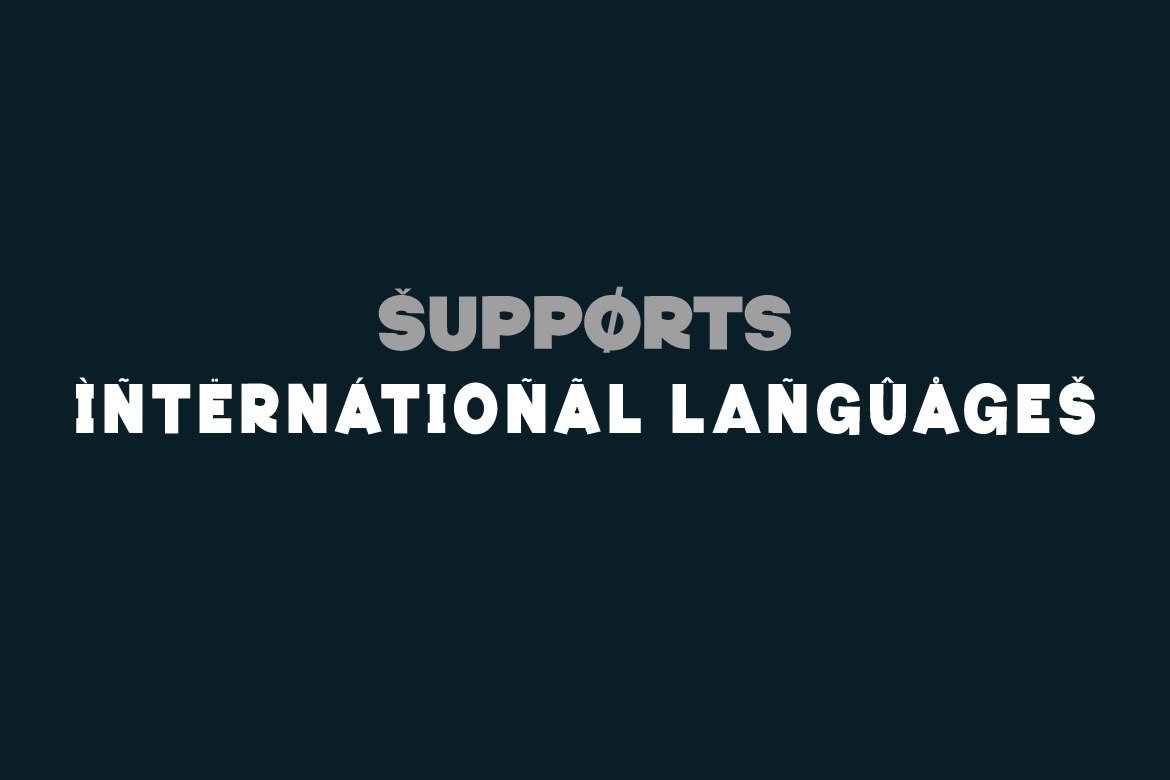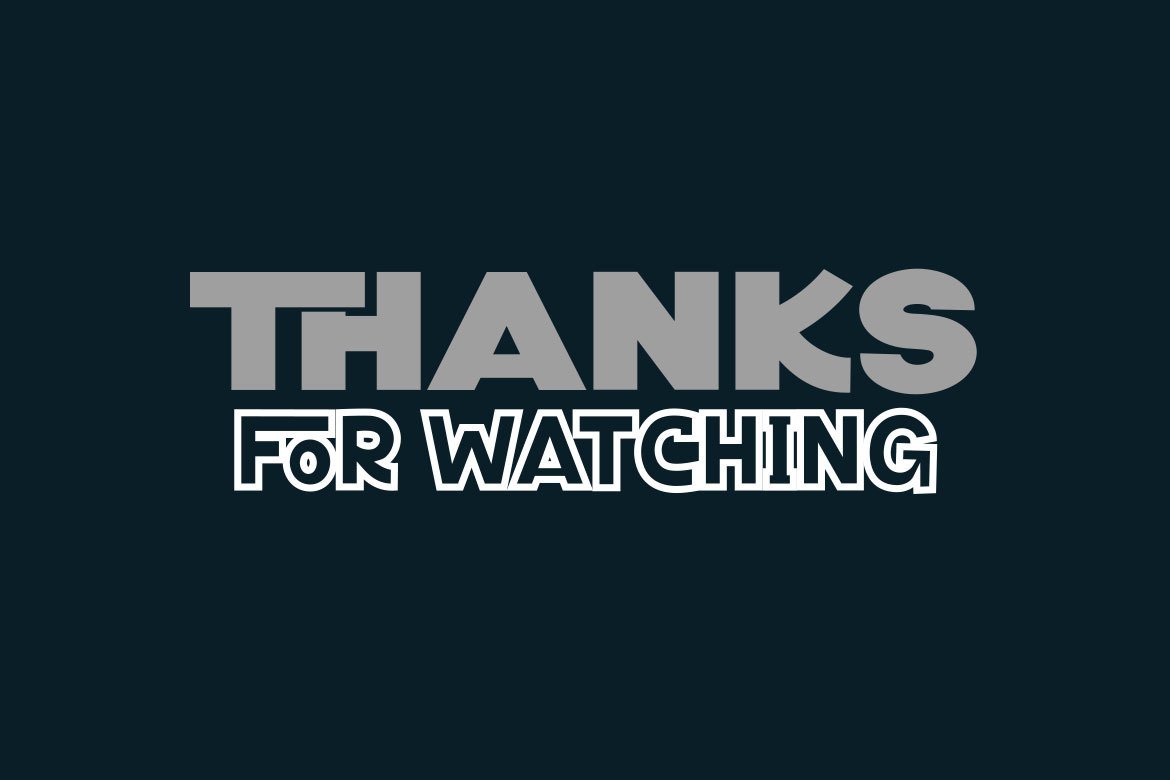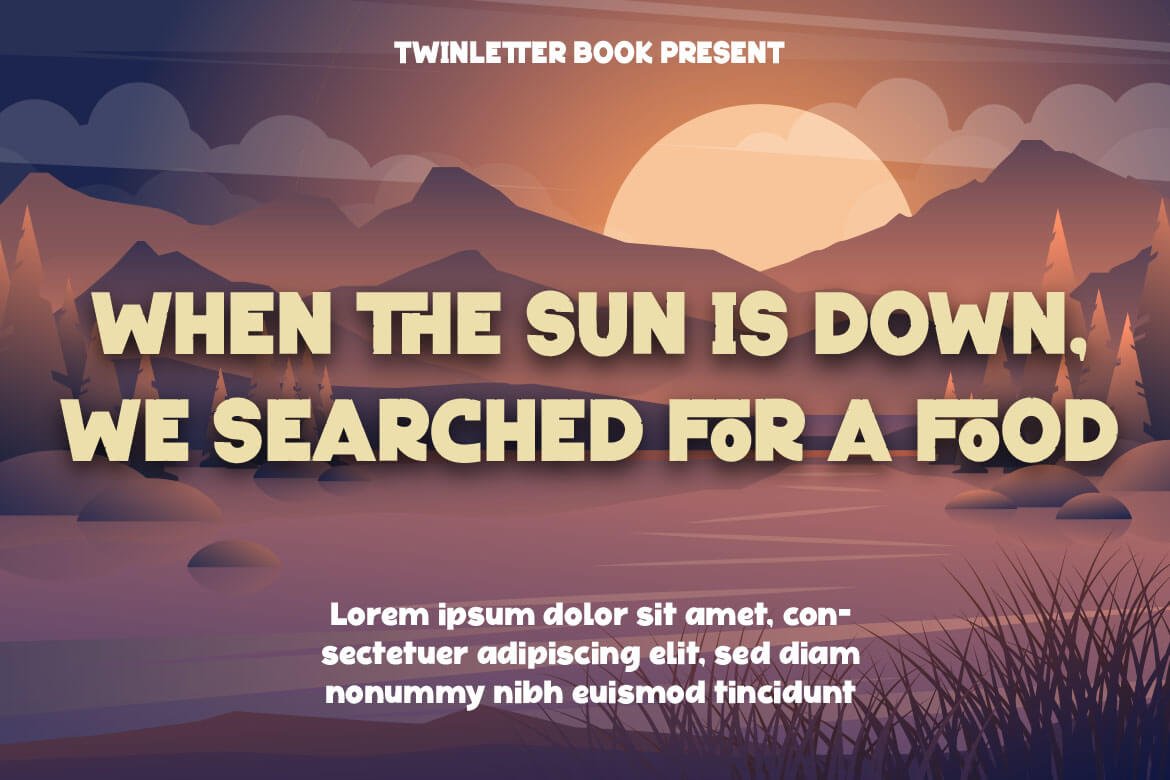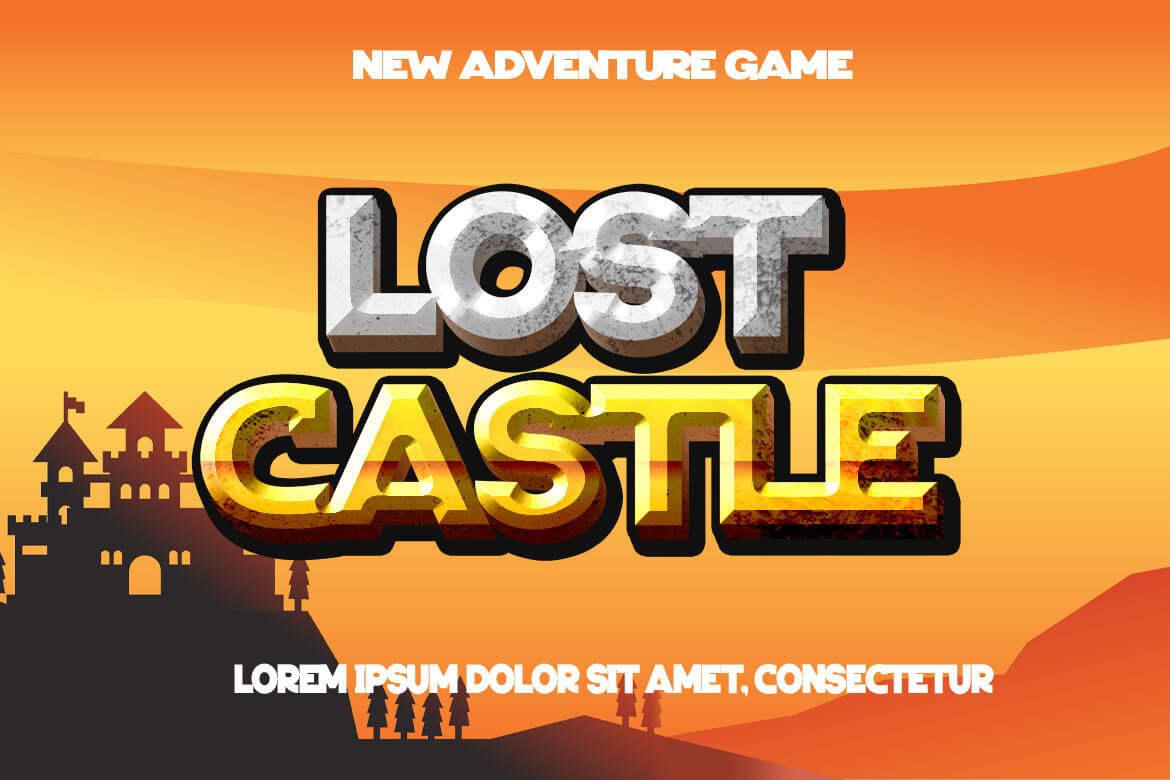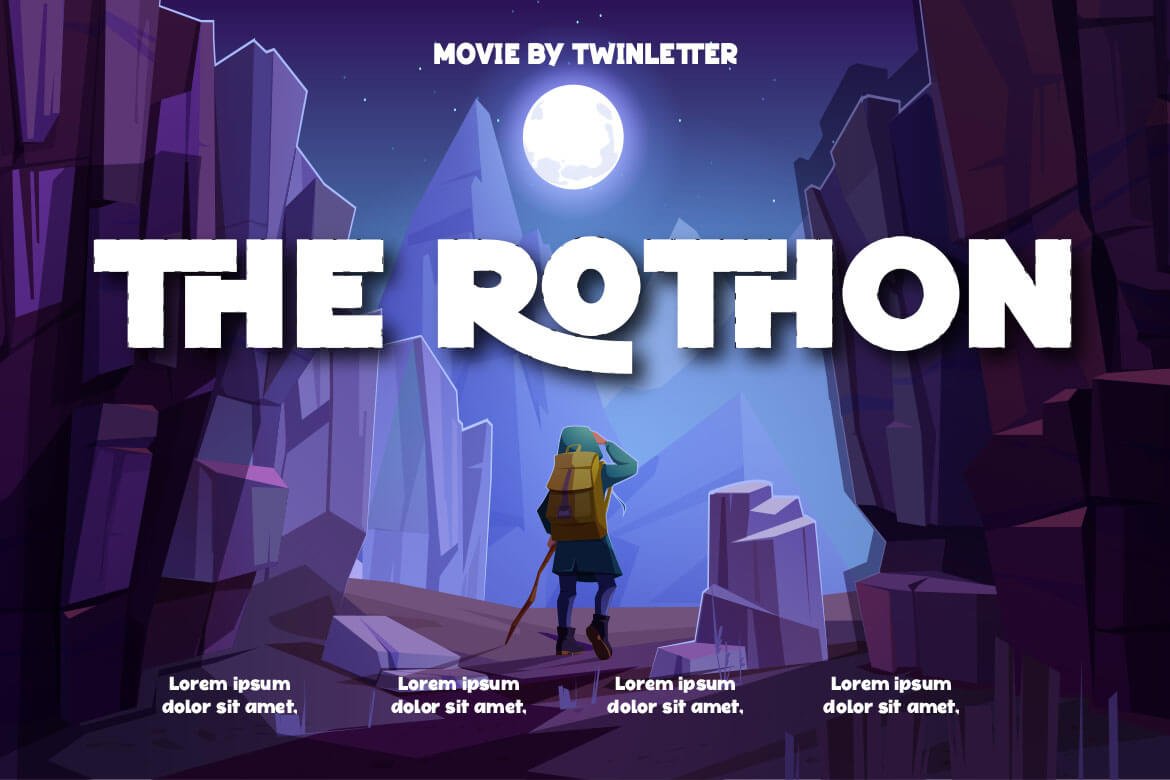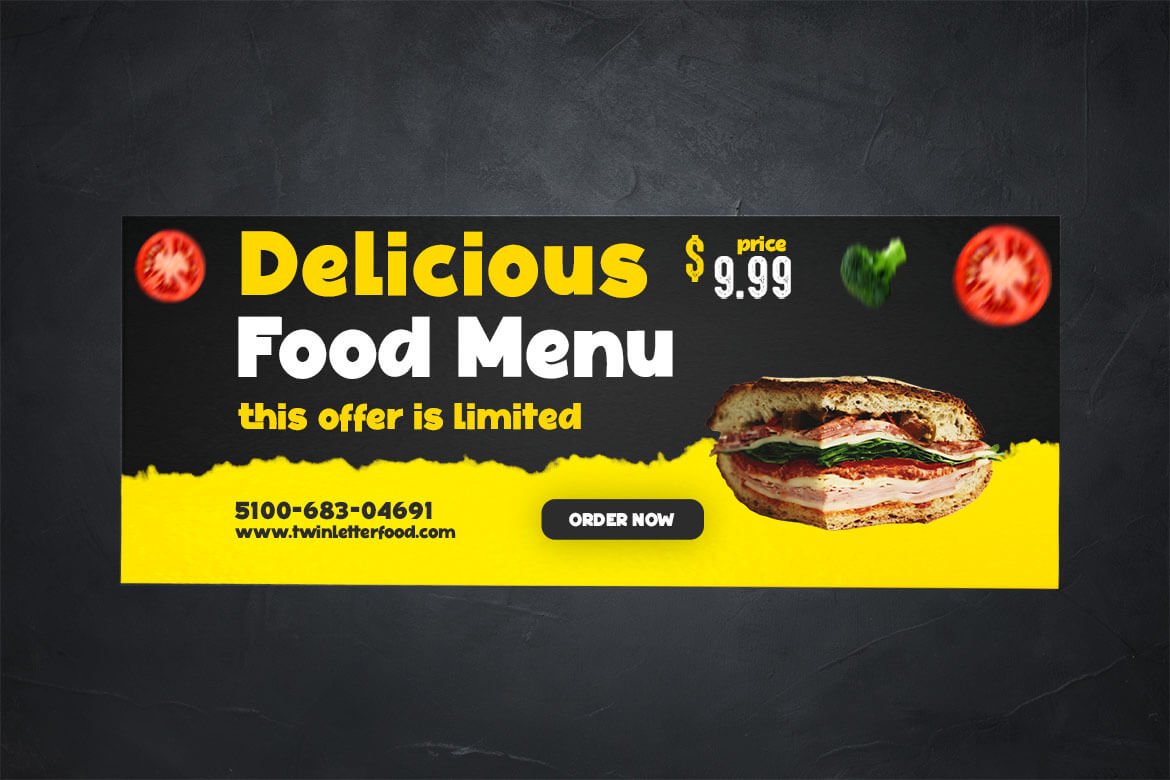
Black Foroth
Black Foroth is a san serif font with an elegant yet fun relaxed appearance. It differs from other san-serif fonts in its application because it was created by combining serious and relaxed themes, resulting in a font that can give the impression of seriousness while remaining convenient. Use it in your creative projects to get a unique look and feel.
This font is perfect for games, sporting events, branding, banners, posters, movie titles, book titles, quotes, logotypes, and more.
of course, your various design projects will be perfect and extraordinary if you use this font because this font is equipped with a complimentary font family, both for titles and subtitles and sentence text, start using our fonts for your amazing projects.